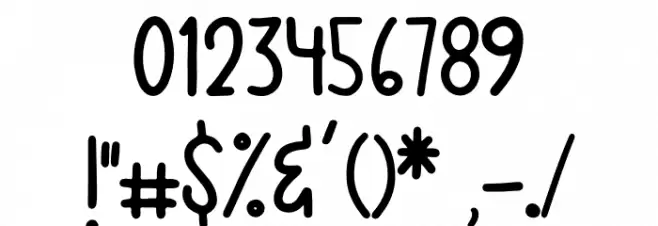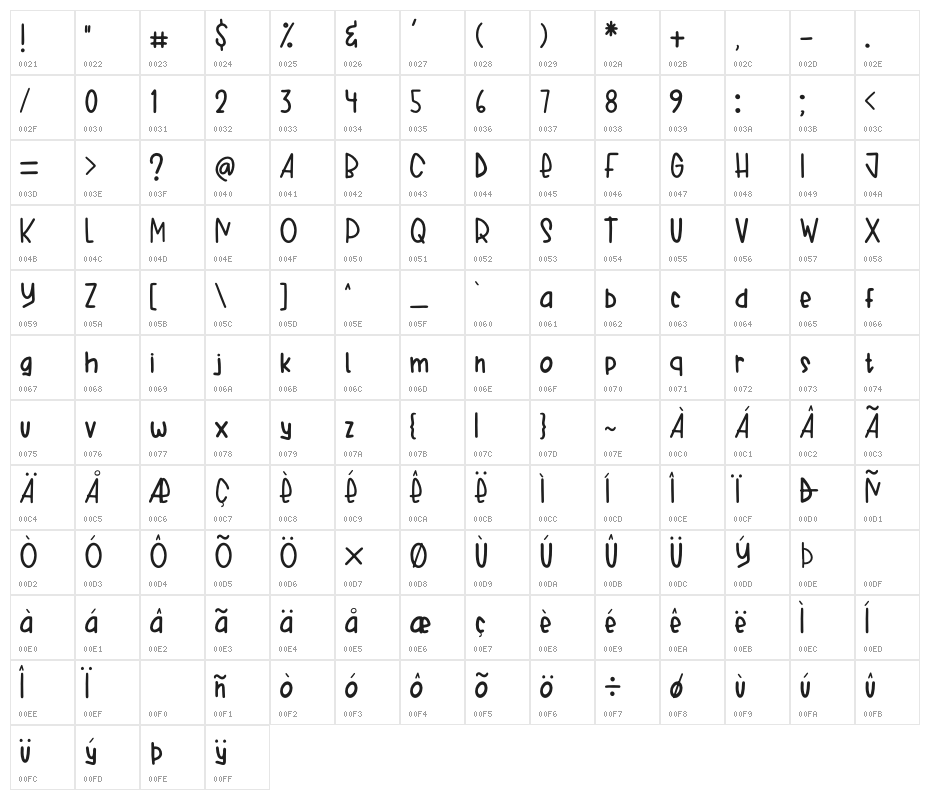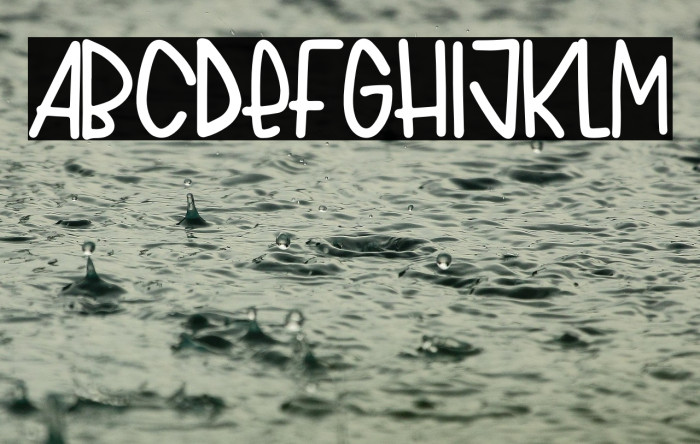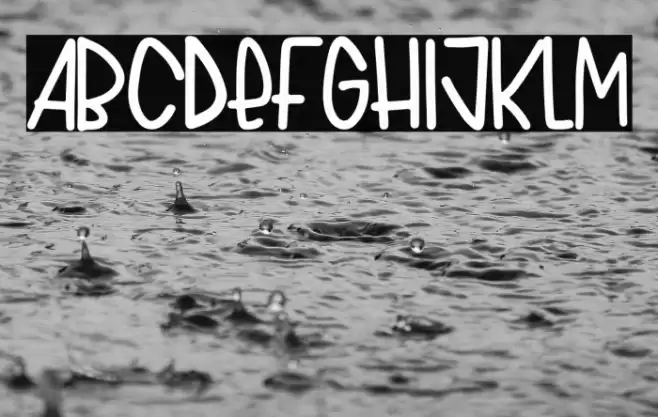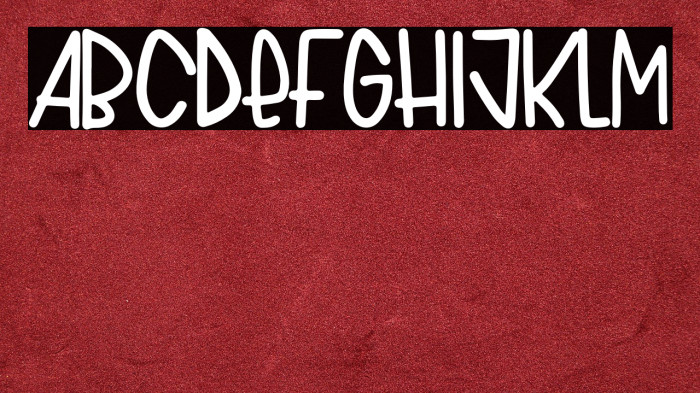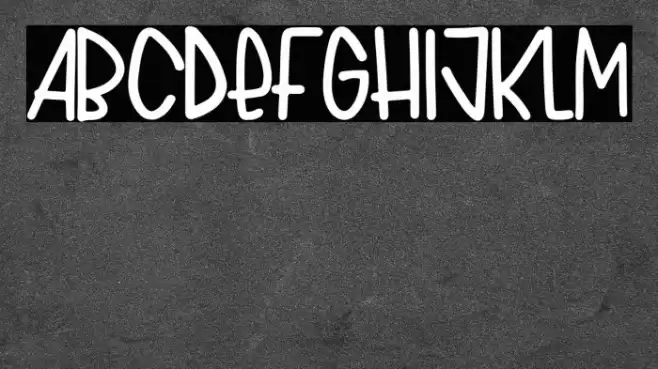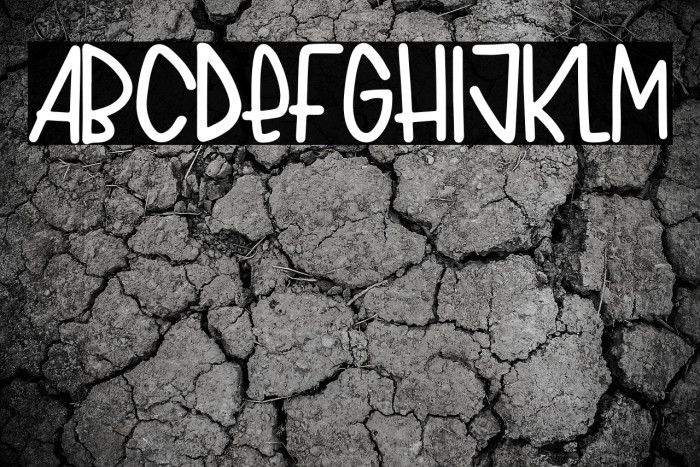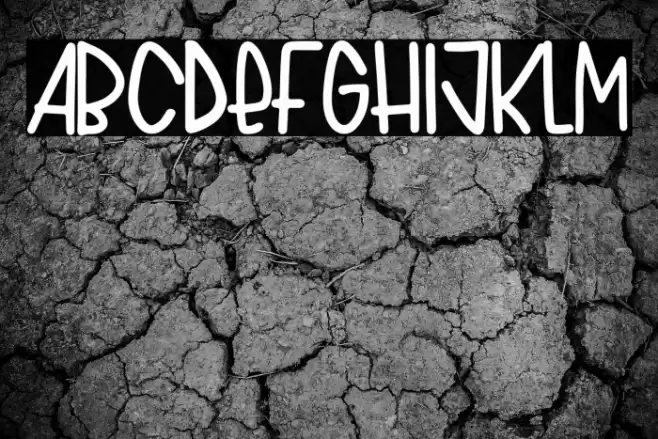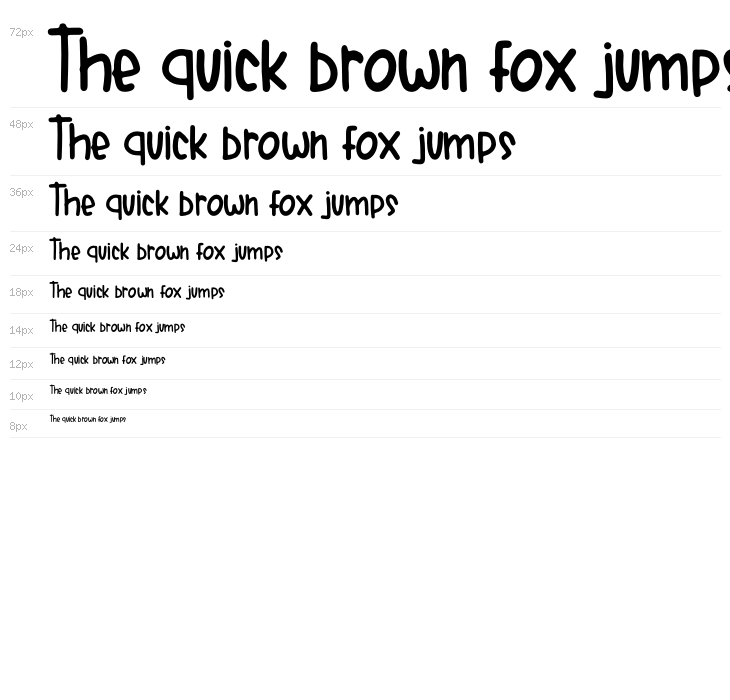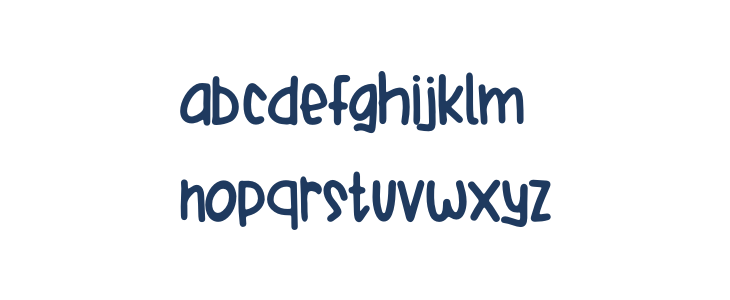
Green Hill Font
Green Hill Description
This playful and whimsical font features a handwritten style with a casual and friendly appearance. The letters are slightly irregular, giving it a natural and organic feel. The uppercase and lowercase characters are well-balanced, with rounded edges and a consistent stroke width that adds to its approachable look. The numerals and special characters maintain the same playful aesthetic, making it versatile for various design needs. Its informal style is perfect for projects that require a personal touch, such as invitations, greeting cards, or children's book illustrations.
| Proposed Projects | Ideal for invitations, greeting cards, children's books, and playful branding. |